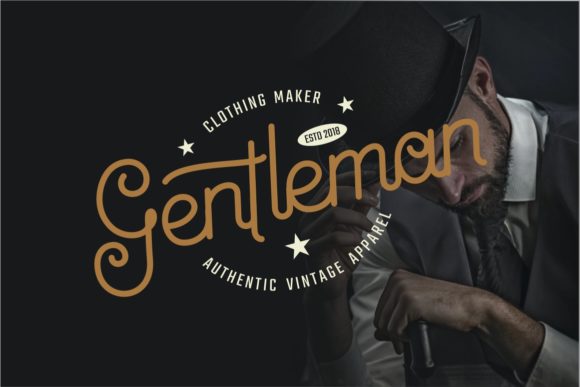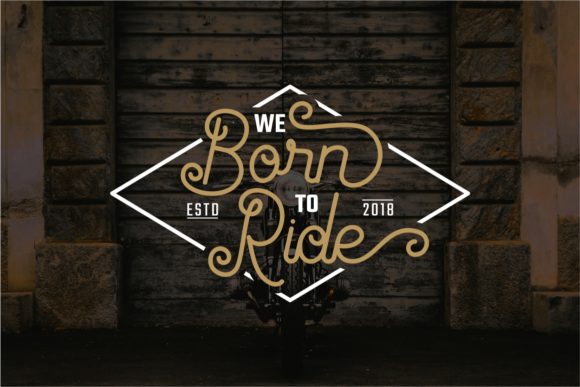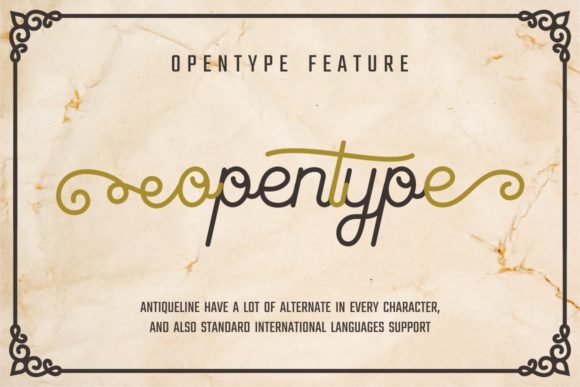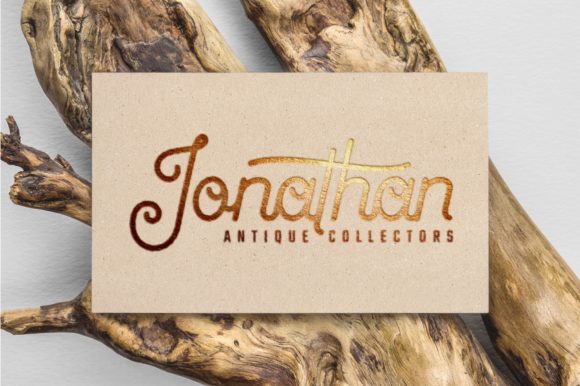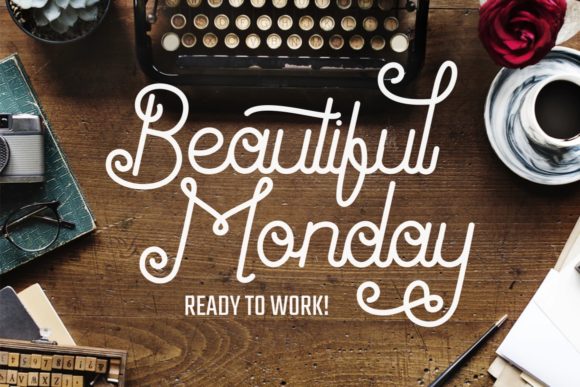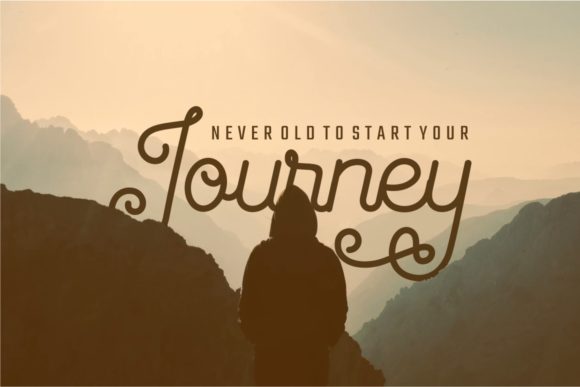
Introducing the Antiqueline Font: A Timeless Typeface for Luxurious Designs
The Antiqueline font is a unique monoline typeface that exudes an antique and classy feel, making it perfect for luxurious designs. This elegant font is designed to add a touch of sophistication and refinement to any project, from high-end branding and advertising to stylish crafting and DIY projects.
A Brief Overview of the Antiqueline Font
The Antiqueline font is a monoline typeface, characterized by its single-line construction and elegant letterforms. This font style is reminiscent of classic serif fonts, but with a modern twist that sets it apart from more traditional typefaces. The Antiqueline font features a distinctive, refined aesthetic that is sure to elevate any design project.
Key Features of the Antiqueline Font
- Unique Monoline Construction: The Antiqueline font features a single-line construction that gives it a distinctive, elegant appearance.
- Antique and Classy Feel: This font’s classic letterforms and refined aesthetic evoke a sense of luxury and sophistication.
- Perfect for Luxurious Designs: The Antiqueline font is ideal for high-end branding, advertising, and design projects that require a touch of elegance and refinement.
- Versatile and Adaptable: This font can be used for a wide range of design projects, from digital designs to print materials and crafting projects.
What Makes the Antiqueline Font So Special?
The Antiqueline font’s unique blend of classic and modern elements makes it a standout typeface. Its monoline construction gives it a sleek, contemporary feel, while its antique and classy aesthetic evoke a sense of timeless elegance. This font is perfect for designers and crafters who want to add a touch of sophistication and luxury to their projects.
How to Use the Antiqueline Font in Your Designs
The Antiqueline font is versatile and adaptable, making it suitable for a wide range of design projects. Here are a few ideas for using this font in your designs:
- Branding and Logo Design: Use the Antiqueline font to create elegant, high-end logos and branding materials.
- Advertising and Marketing: This font is perfect for creating sophisticated advertising and marketing materials, such as brochures, flyers, and social media graphics.
- Crafting and DIY Projects: Add a touch of elegance to your crafting and DIY projects, such as handmade cards, gift tags, and journal pages.
- Digital Designs: Use the Antiqueline font in digital designs, such as website headers, email newsletters, and social media graphics.
Tips for Getting the Most Out of the Antiqueline Font
To get the most out of the Antiqueline font, here are a few tips:
- Use it Sparingly: Because of its elegant and refined aesthetic, it’s best to use the Antiqueline font sparingly to avoid overwhelming the design.
- Pair it with Other Fonts: Experiment with pairing the Antiqueline font with other fonts to create visually interesting and dynamic designs.
- Experiment with Colors and Textures: Try out different colors and textures to add depth and interest to your designs.
The Antiqueline font is a unique and elegant typeface that is perfect for luxurious designs. Its antique and classy feel, combined with its monoline construction, make it a standout font that is sure to elevate any design project. Whether you’re a designer, crafter, or DIY enthusiast, the Antiqueline font is a great addition to your font collection.